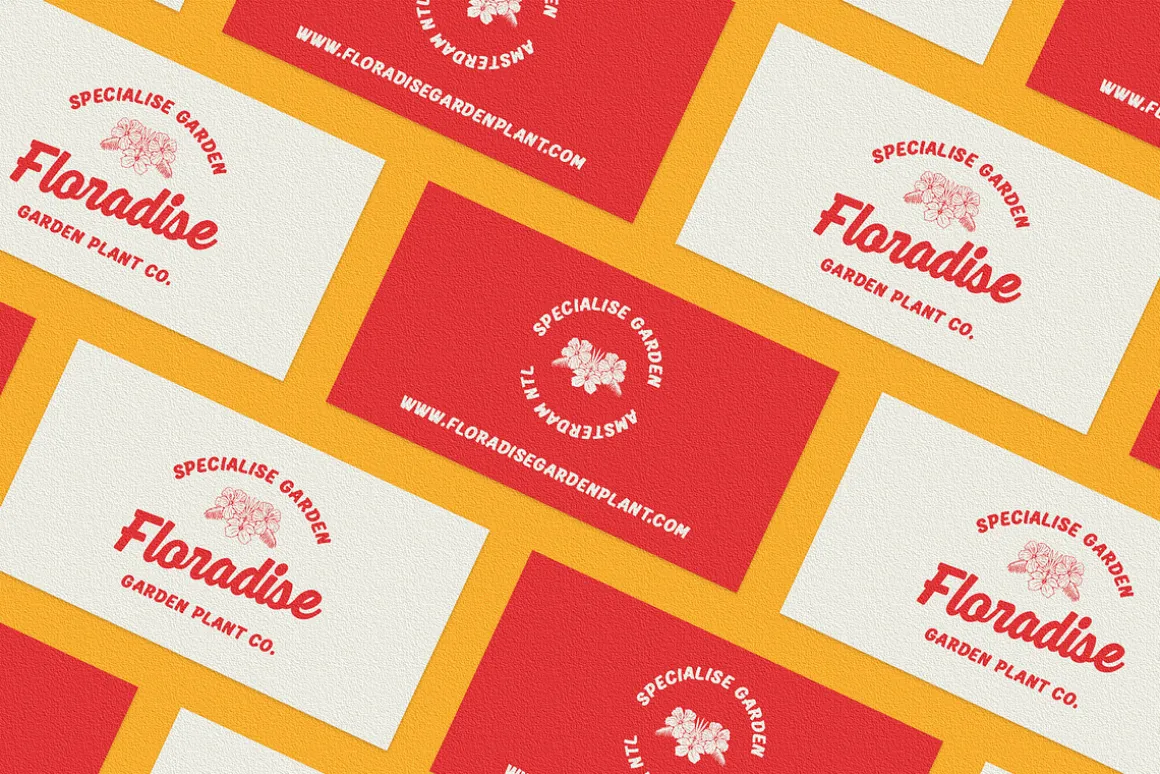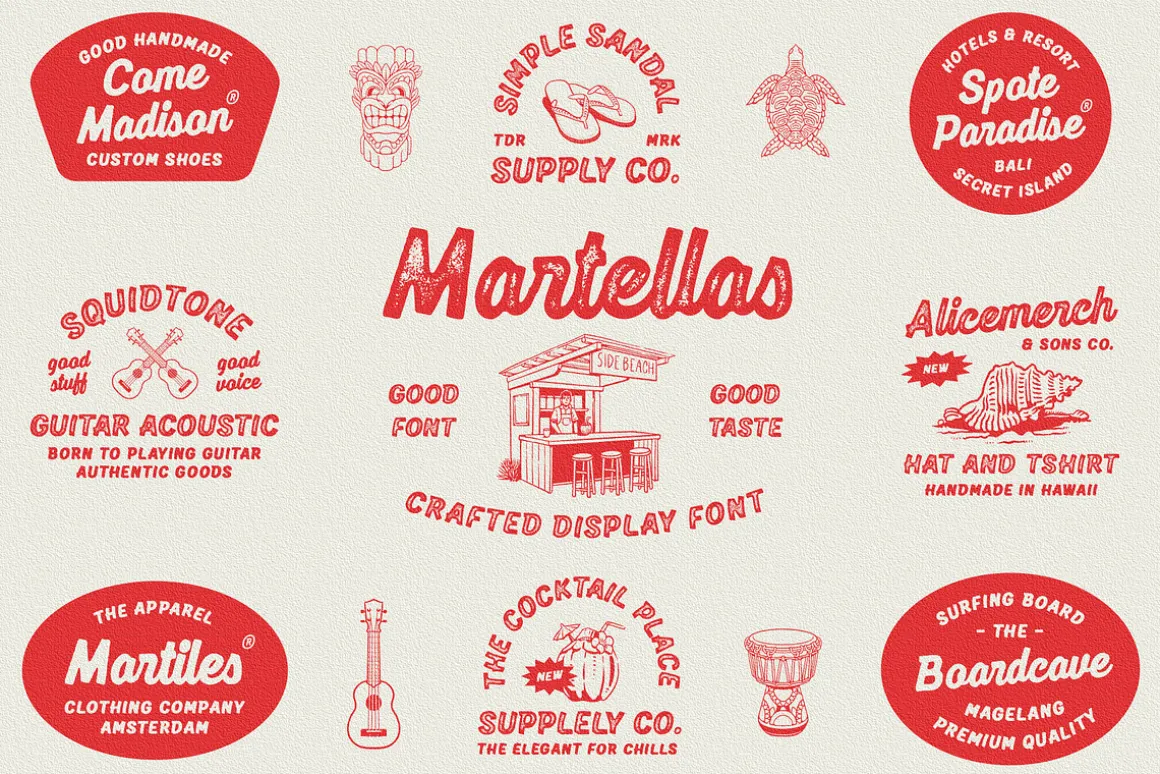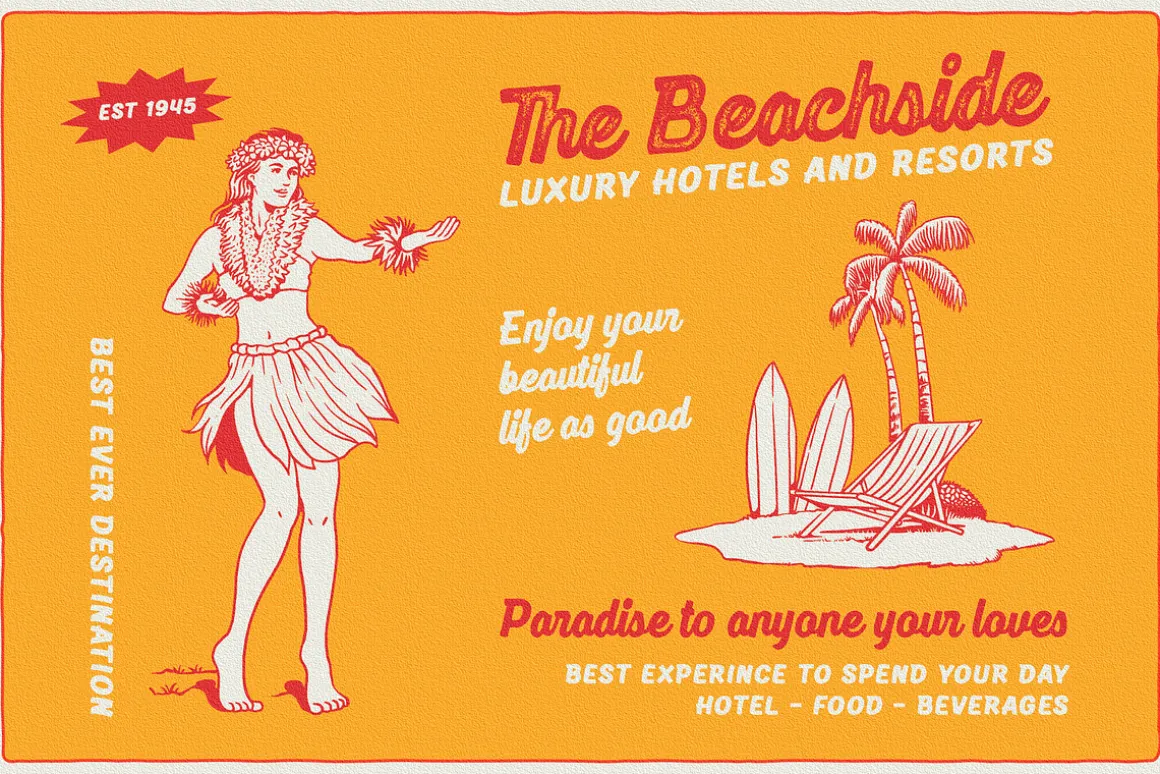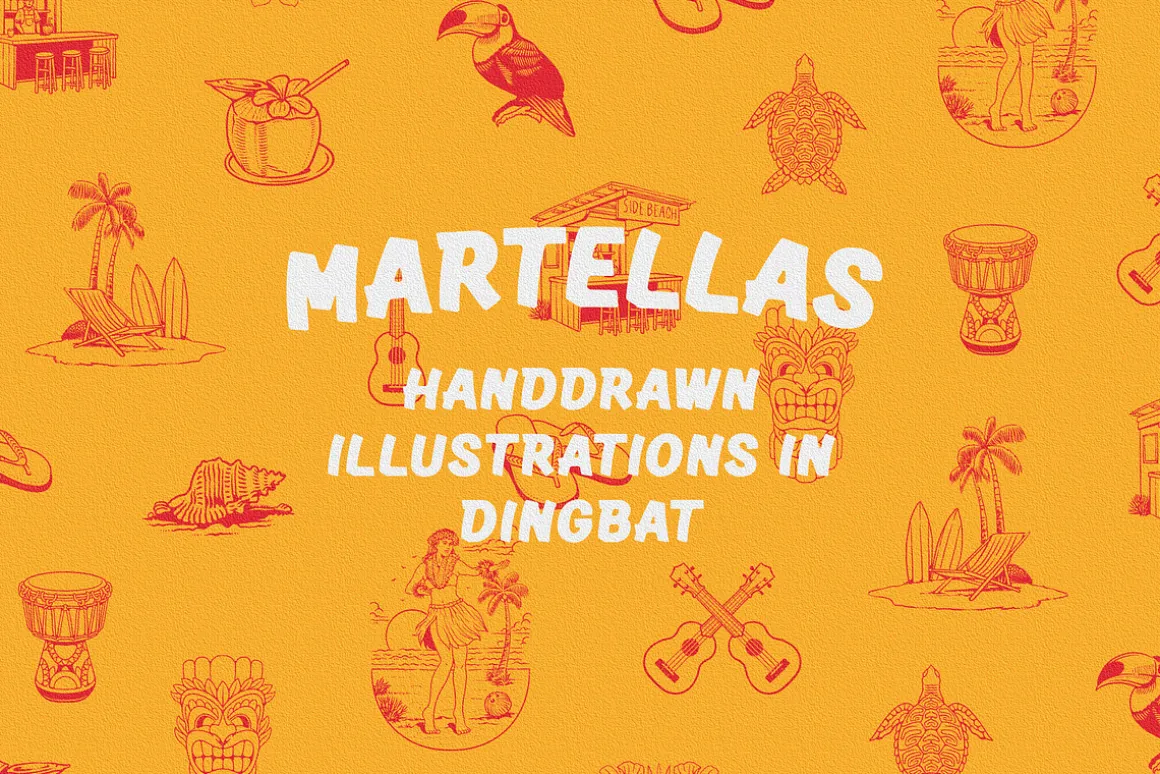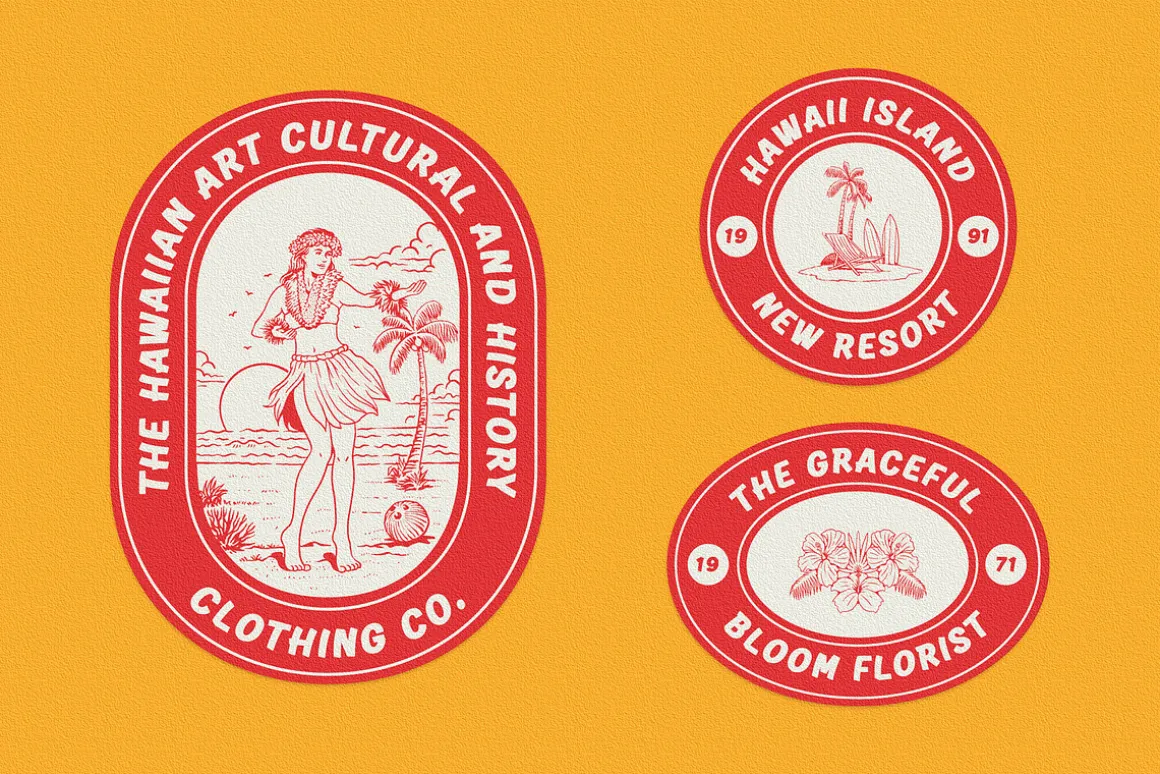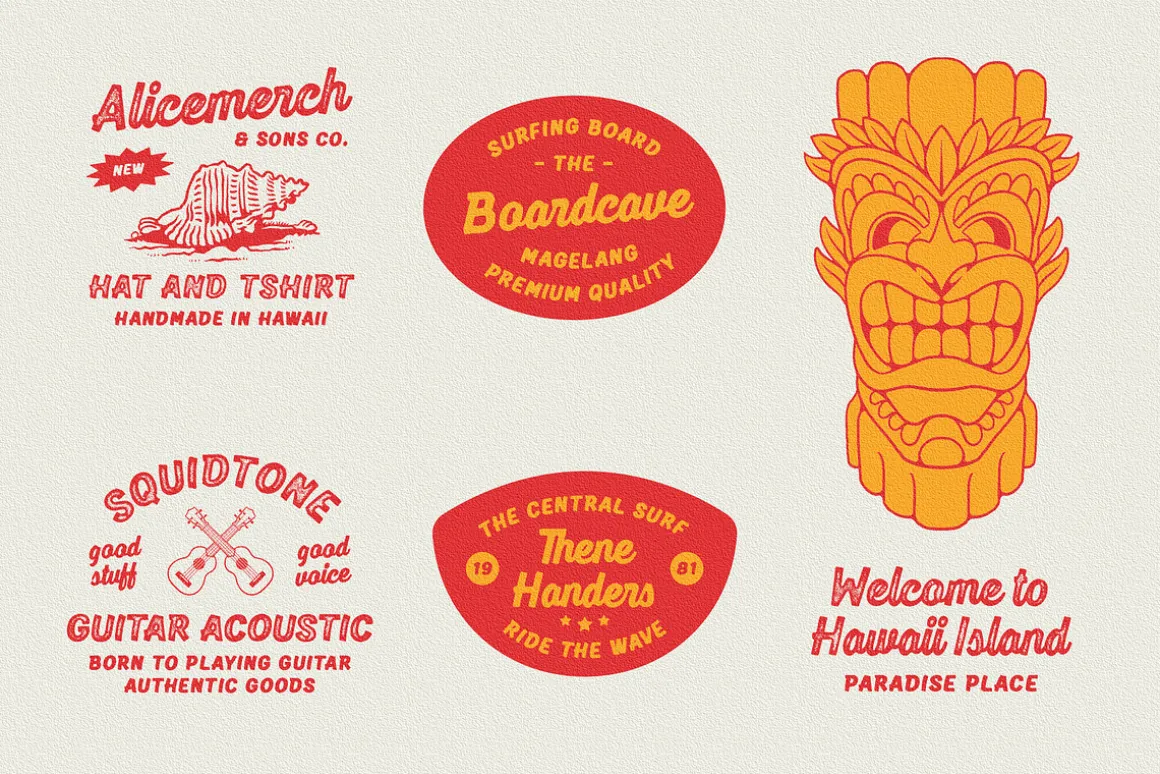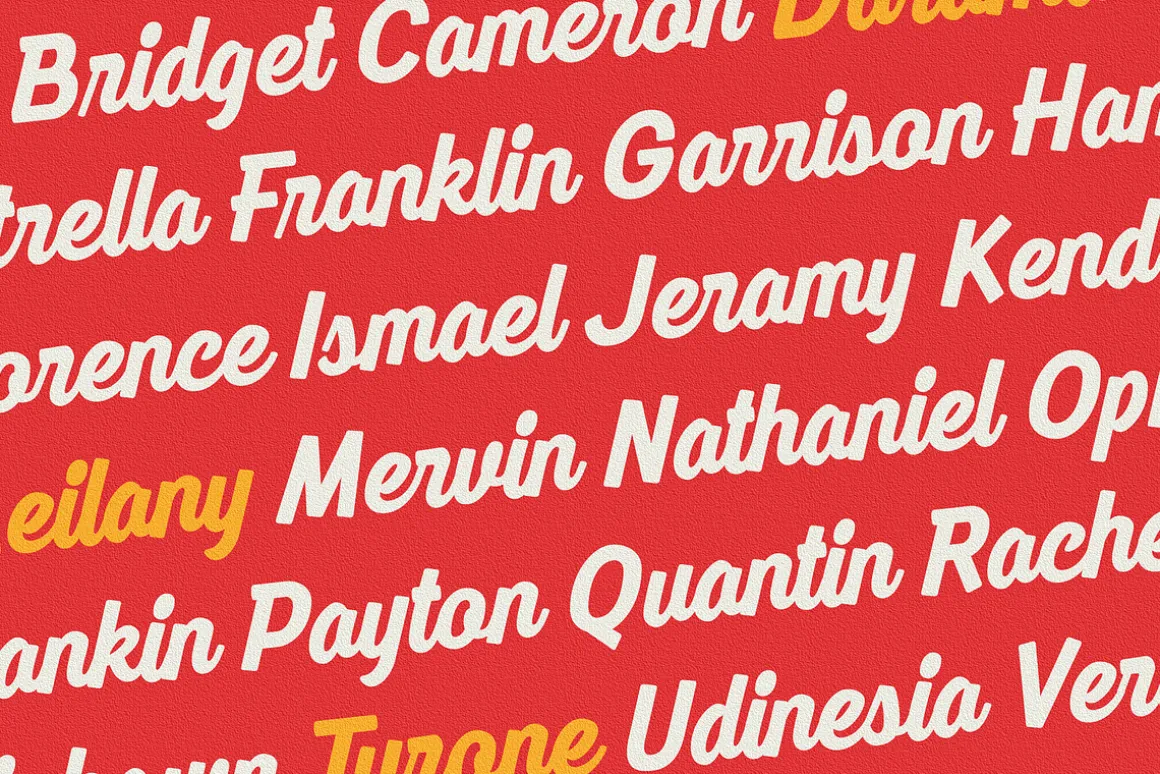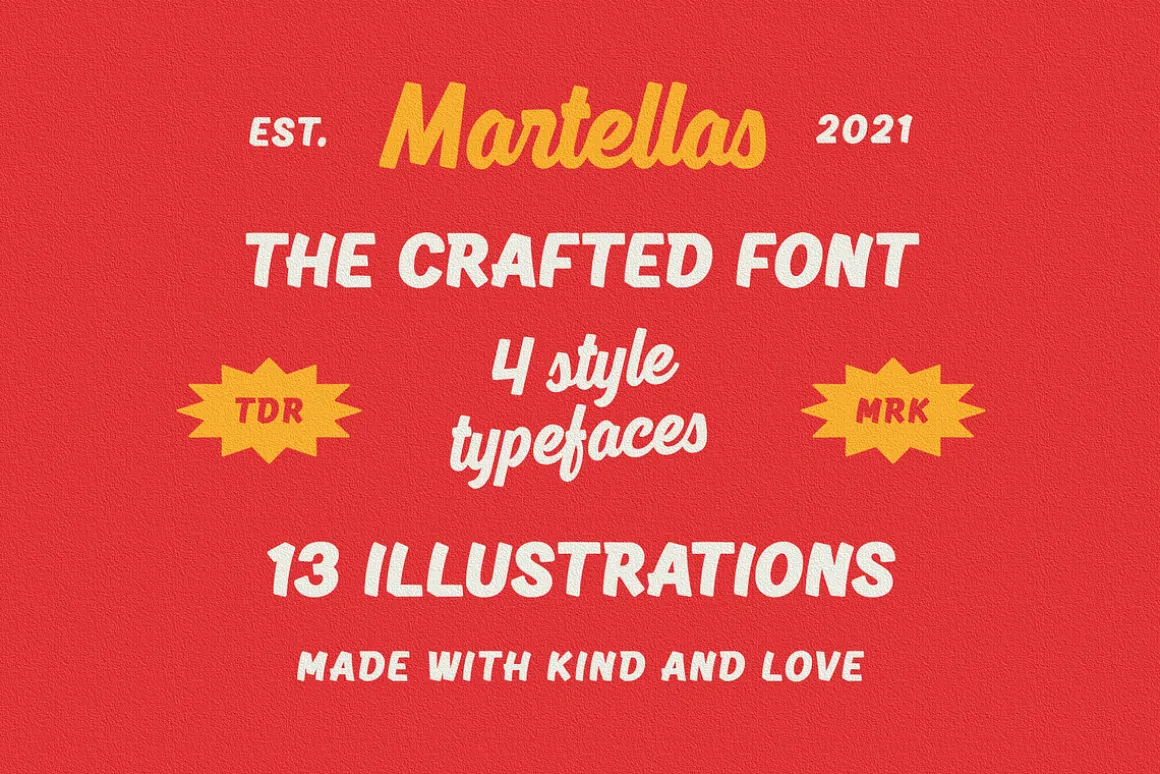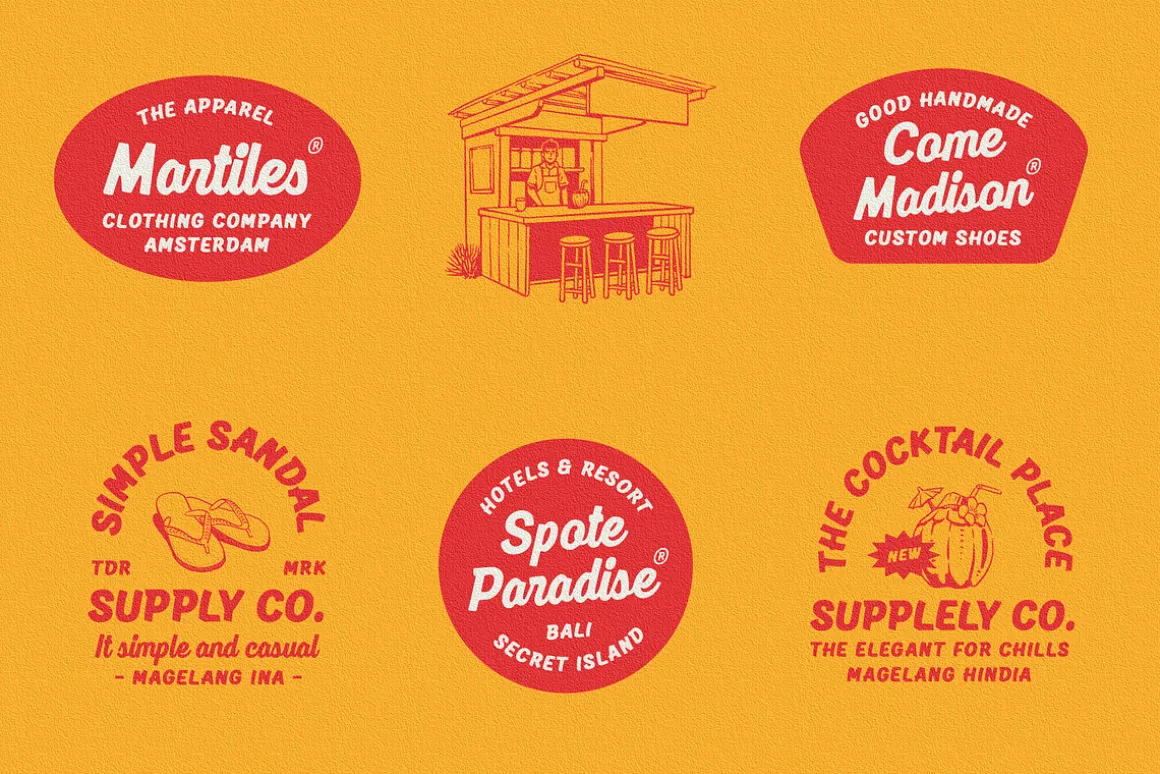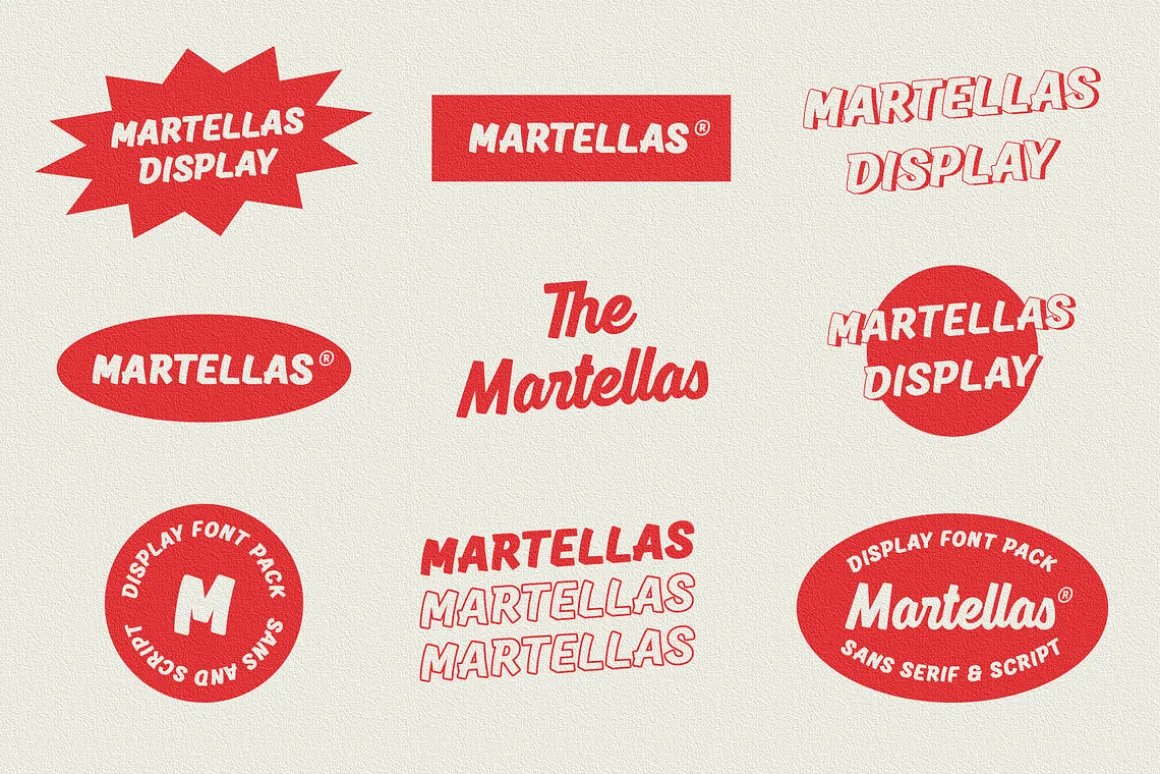
The font collection is called “Martellas”, it is a display font for logotype. These collections contain script and sans serif font. Every font comes with 4 style typefaces (regular, rounded, rough and stamp). Martellas give more extras 1 pack hawaii illustrations. This script font includes some alternates and ligatures. This texture style includes some different stamp for uppercase and lowercase in sans serif. The Martellas matches apply in some designs such as the logo, poster, label, badge, packaging, t-shirt, branding, quotes and more custom design.
Martellas features :
- 4 style typefaces (regular, rounded, rough and stamp)
- Uppercase, lowercase, numeral, symbol, punctuation, ligature and alternate in script font
- All-caps, numeral, symbol and punctuation in sans serif font
- Multilingual
Martellas includes :
- 9 fonts (script, sans serif and dingbat)
- 13 hand-drawn illustrations in dingbat